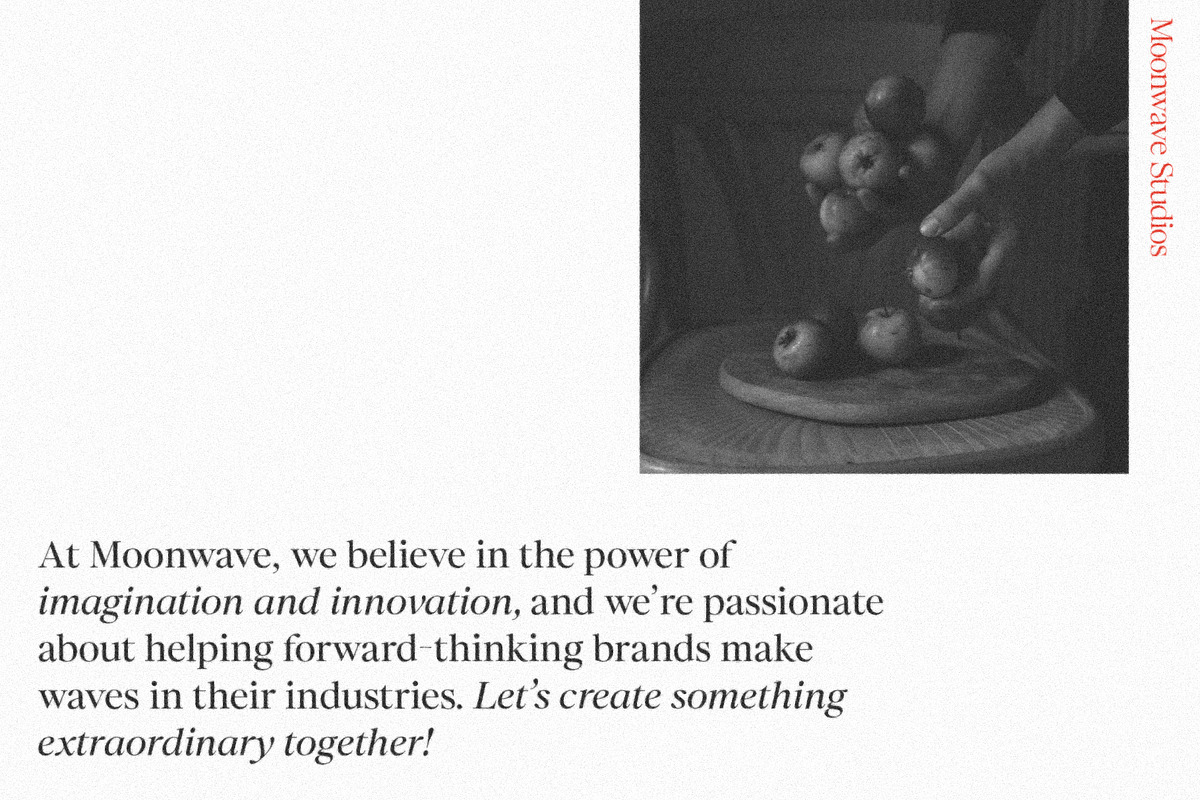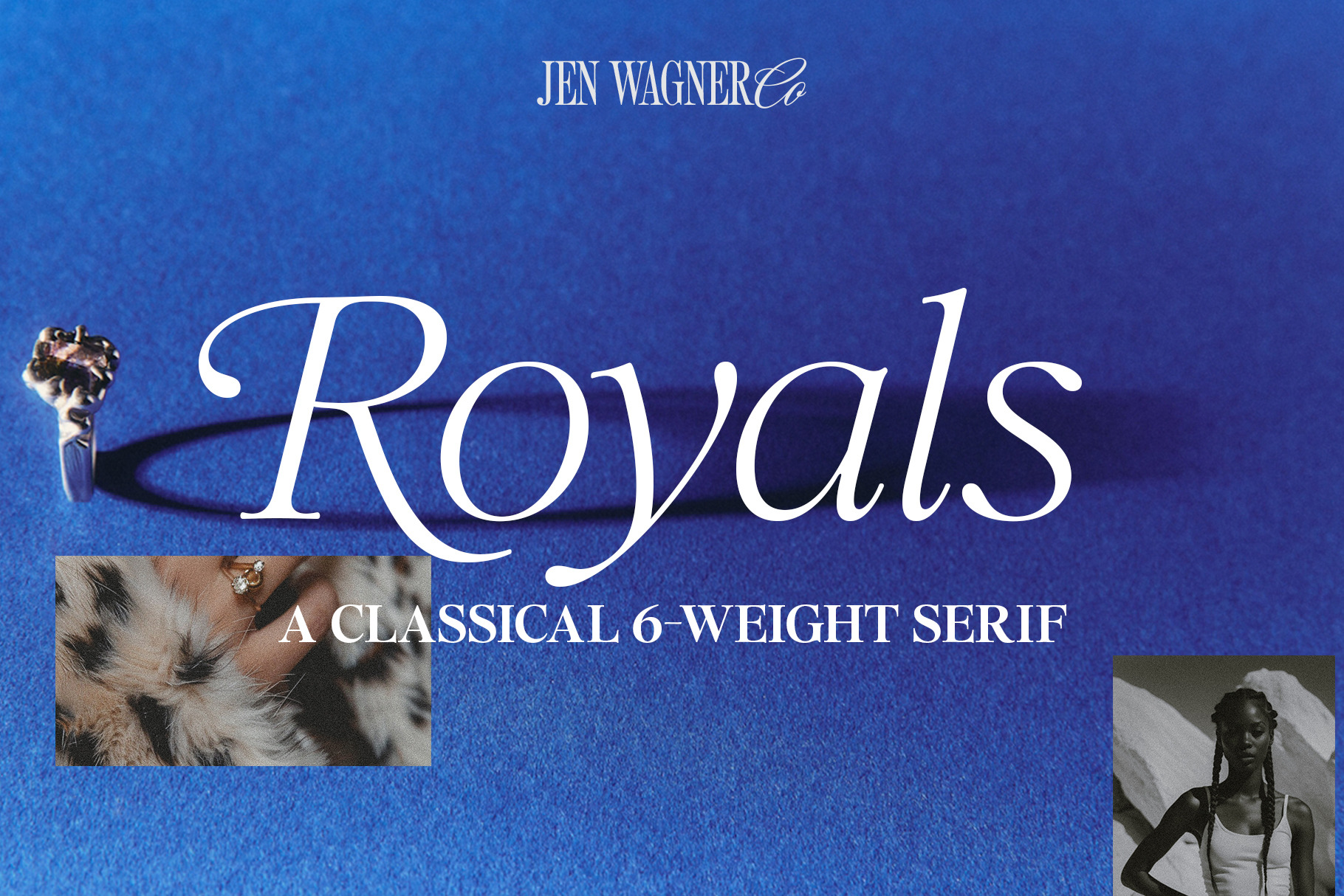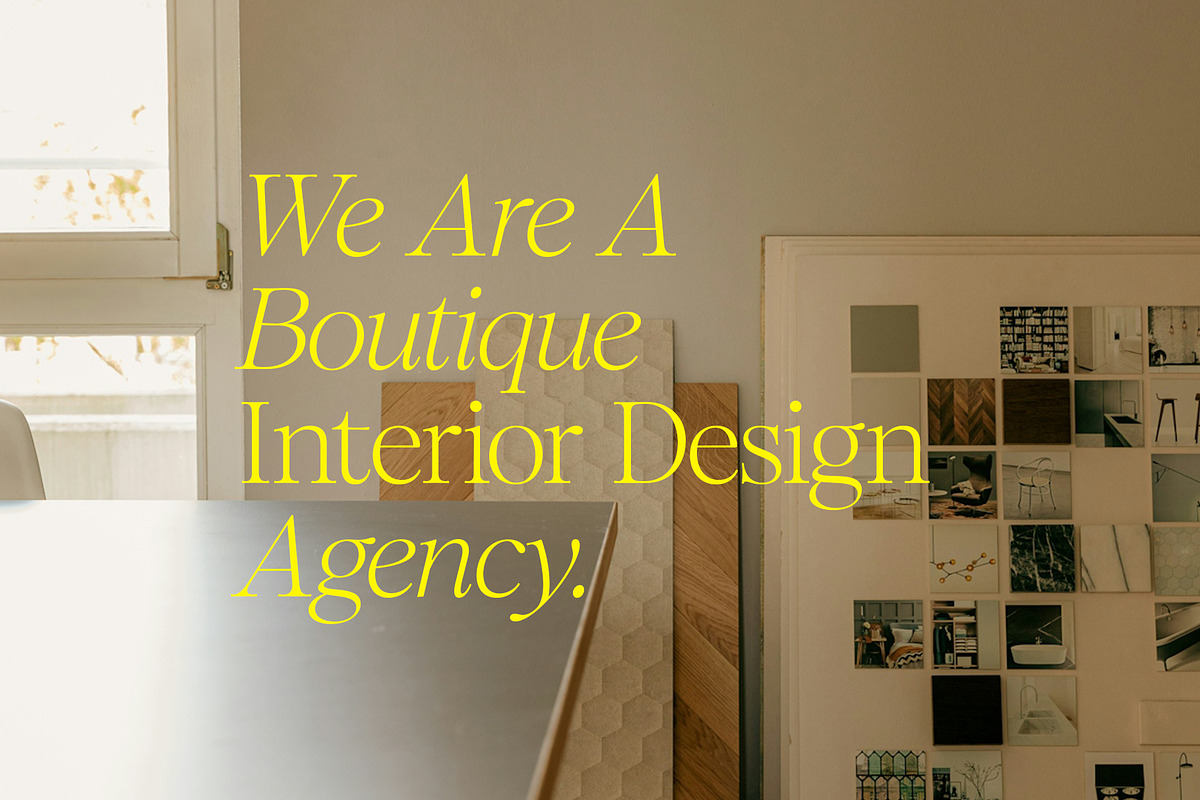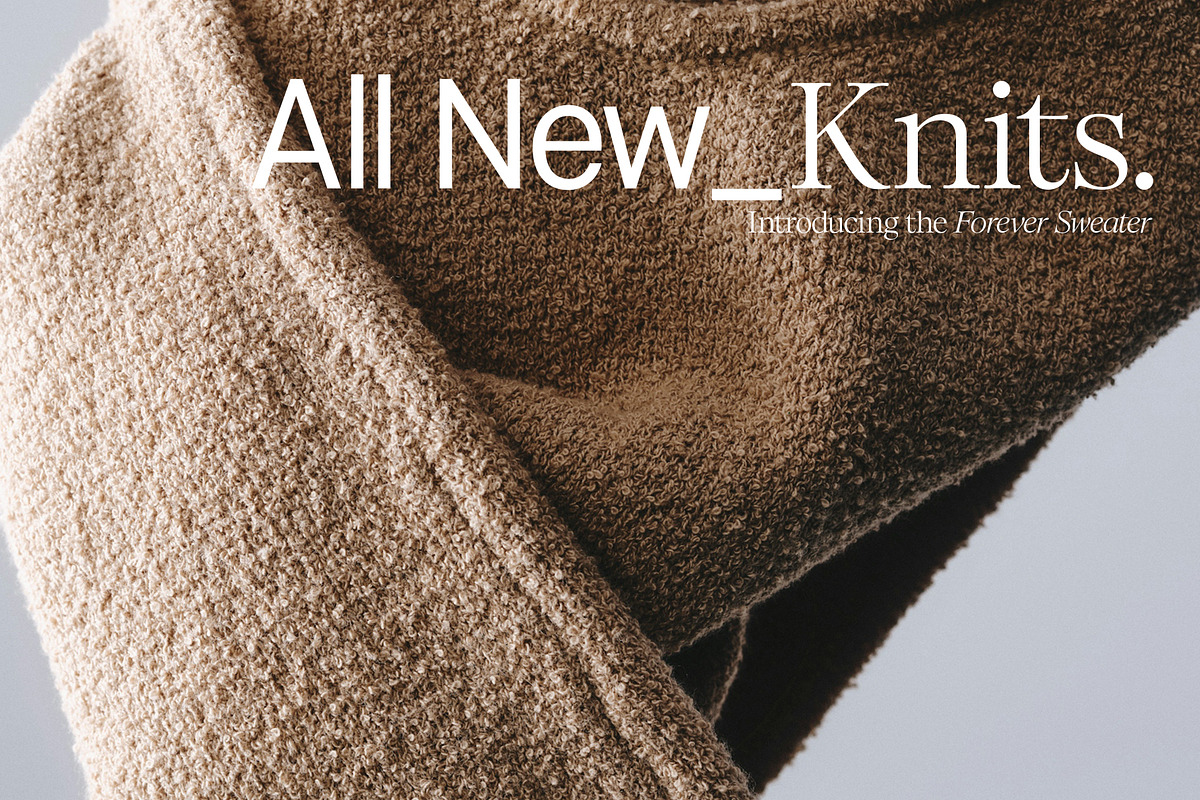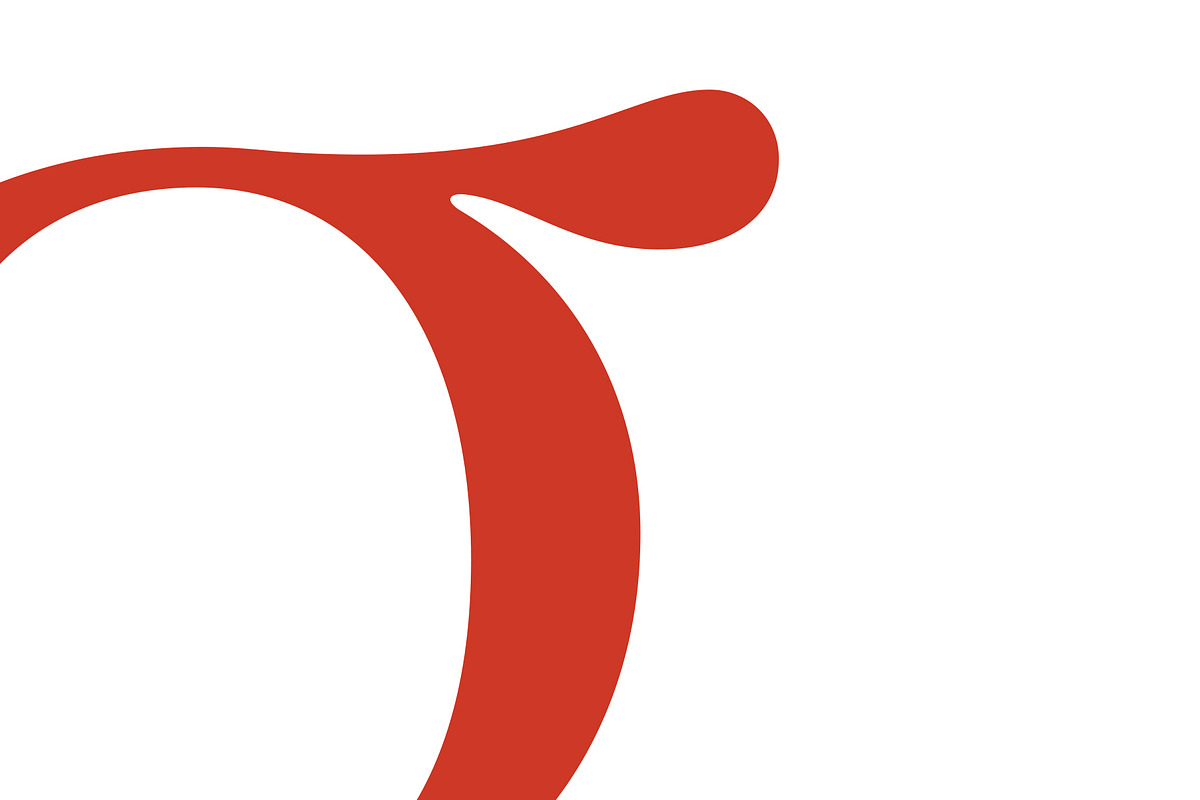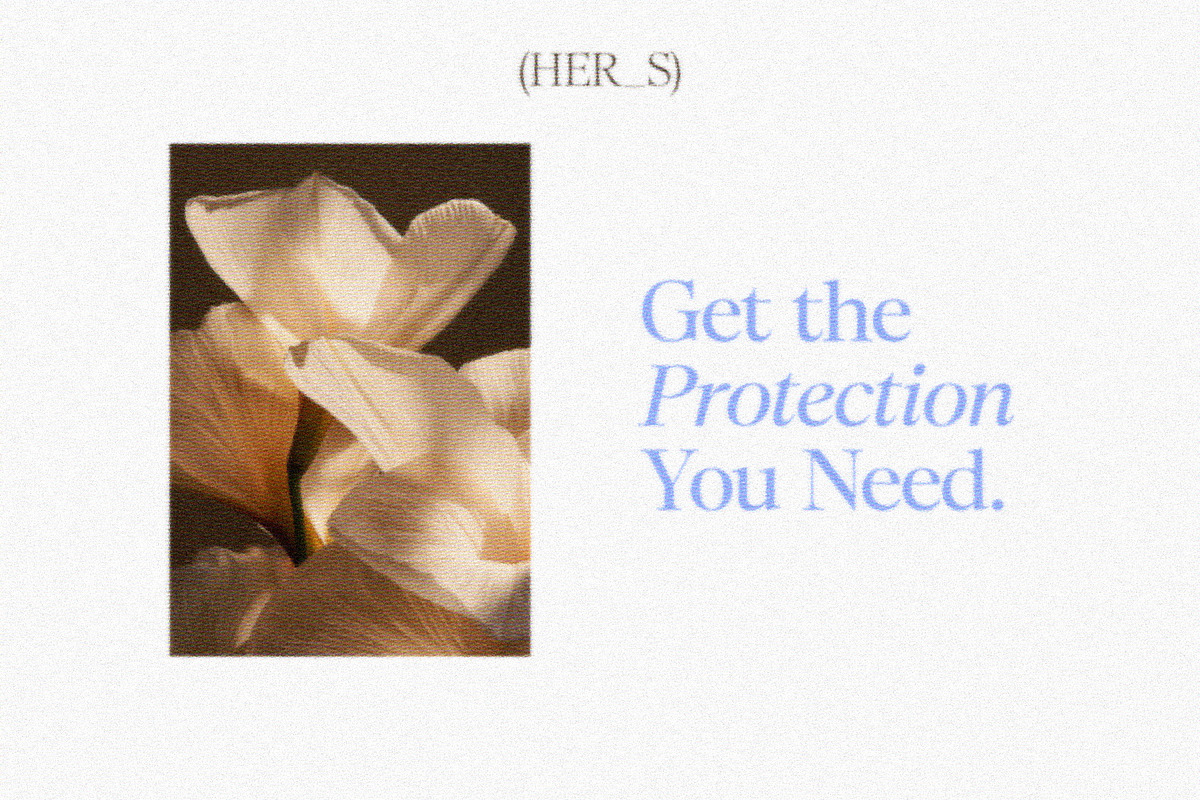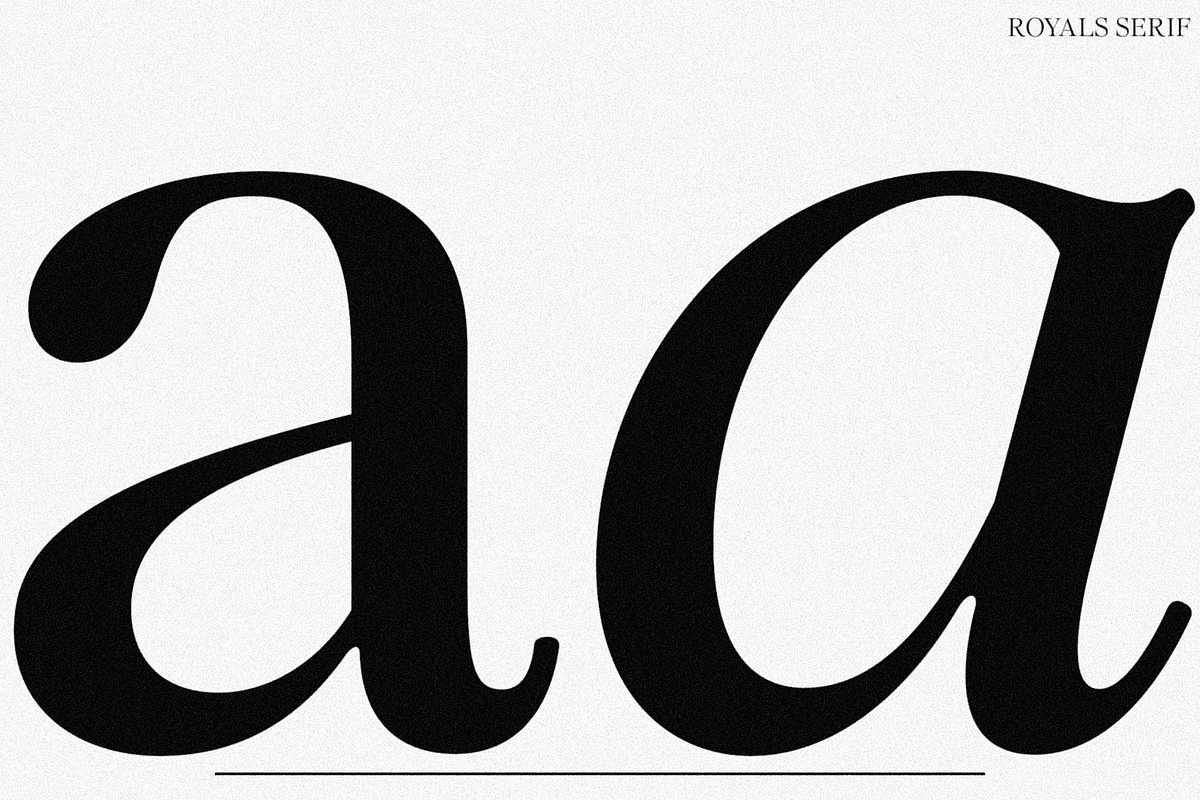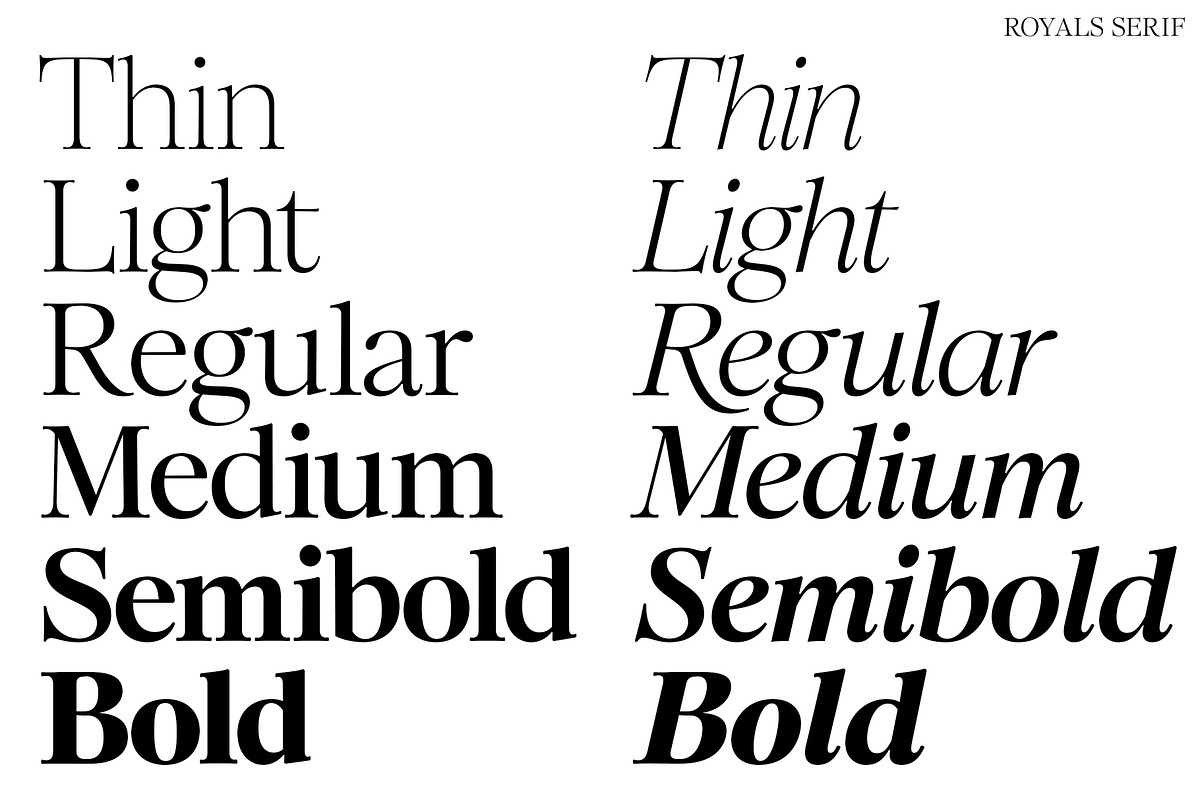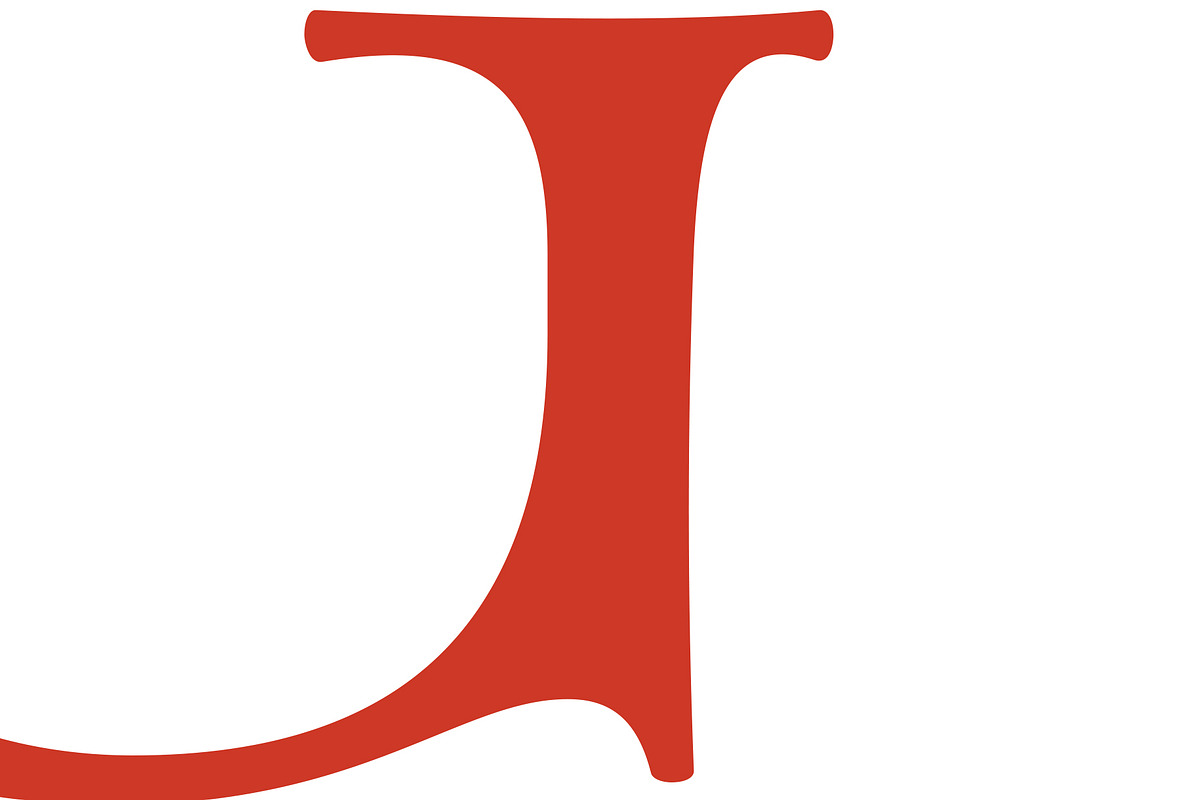
Royals | Romantic 12 Font Serif
Say hello to Royals Serif, a romantic and classic serif family. Use this classic, refined serif for large-scale headers, big text moments, or gorgeous quotes.
Royals Serif is a 6-weight typeface that was built to feel regal while still being super versatile. With rounded cap serifs, organic curves, and soft italics, Royals Serif is a phenomenal go-to for any luxe branding or type-focused project, and is bound to become a staple in your font library.
- Royals Serif Thin, Light, Regular, Medium, Semibold, Bold, & their Italic counterparts (12 fonts total)
- Swash alternates for capital B, D, E, F, K, P, R